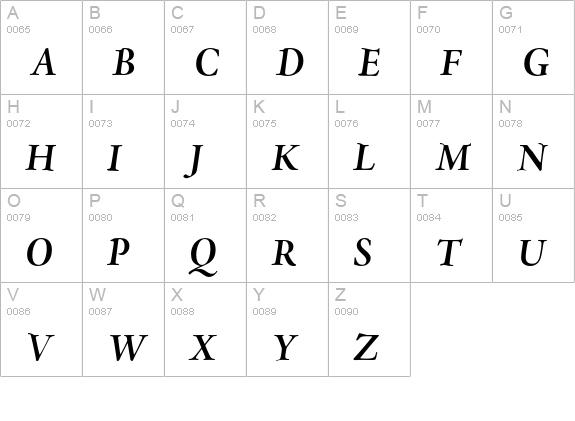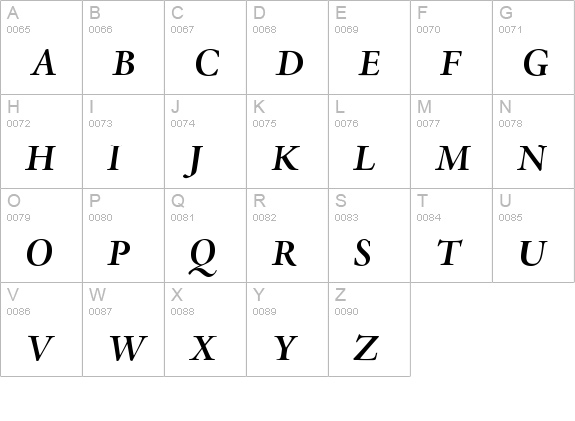
Adobe Jenson Pro Bold Italic Subhead is a strong, high-contrast, italic variant in the Adobe typeface family \xE2\x80\x94 well suited to headlines, attention-grabbing titles, and strong calls-to-action.
Adobe Jenson Pro Bold Italic Subhead font is a visually striking and elegant typeface that exudes sophistication and refinement. With its bold weight and italicized style, this font is perfect for creating impactful subheadings that command attention and convey a sense of authority. What sets Adobe Jenson Pro Bold Italic Subhead font apart is not only its timeless design and versatility but also the fact that it is available for free download at FontsMarket.com. This means that you can easily access and use this premium font in your design projects without any cost, making it a valuable addition to your typographic toolkit. Whether you're working on editorial layouts, branding materials, or any other design project that requires a touch of class and professionalism, Adobe Jenson Pro Bold Italic Subhead font is sure to elevate your work to the next level. Download it for free today and experience the difference that this exceptional font can make in your designs.